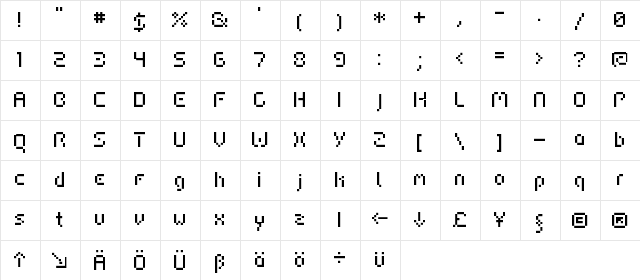
HIAIRPORT FFMCOND Regular Font Preview
HIAIRPORT FFMCOND Regular
Design Context for HIAIRPORT FFMCOND Typeface
HIAIRPORT FFMCOND is a composed and adaptable typeface that performs quietly and consistently across a wide range of design contexts. Its narrow stance lets it pack a punch even in space-constrained designs.